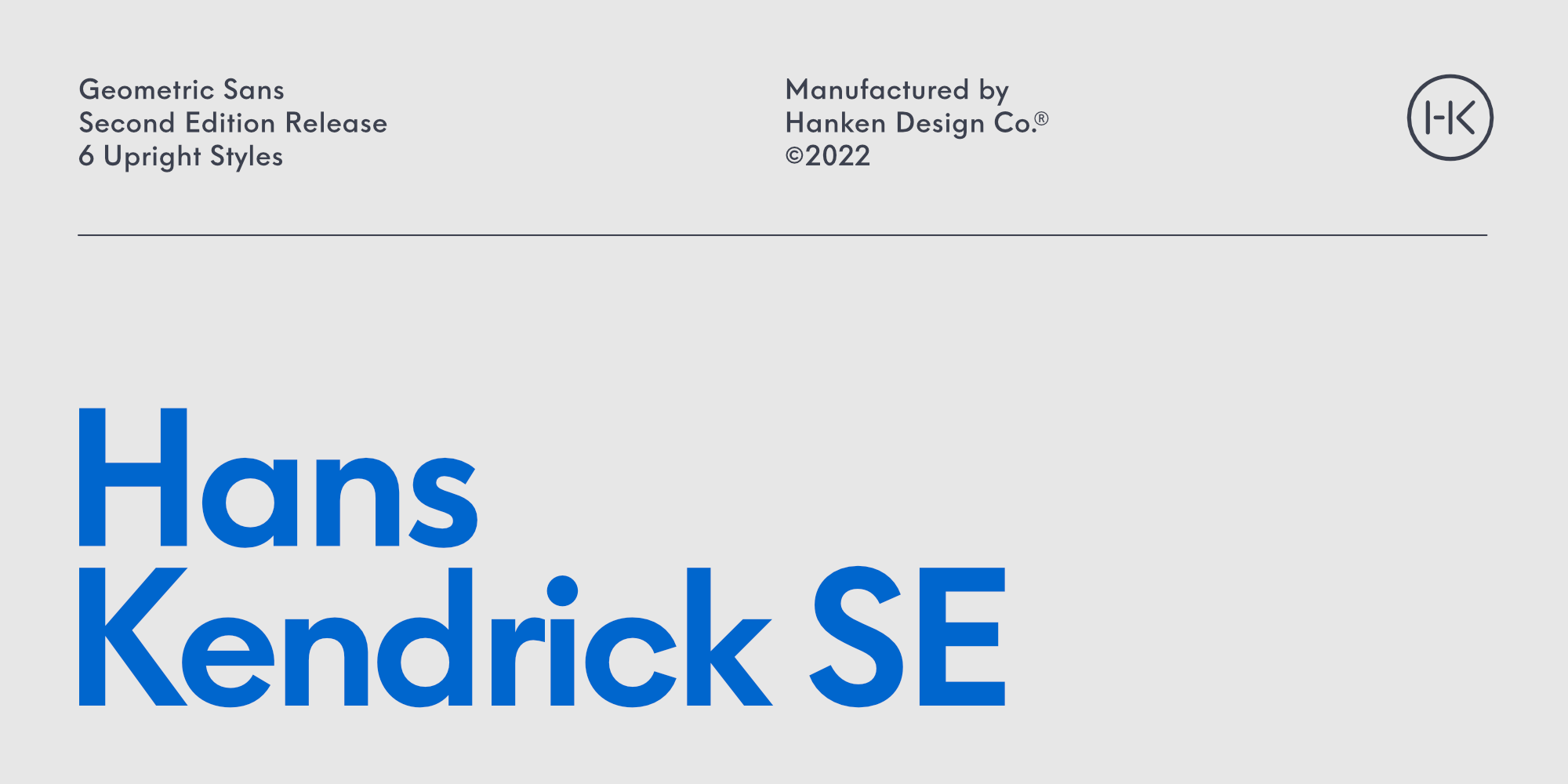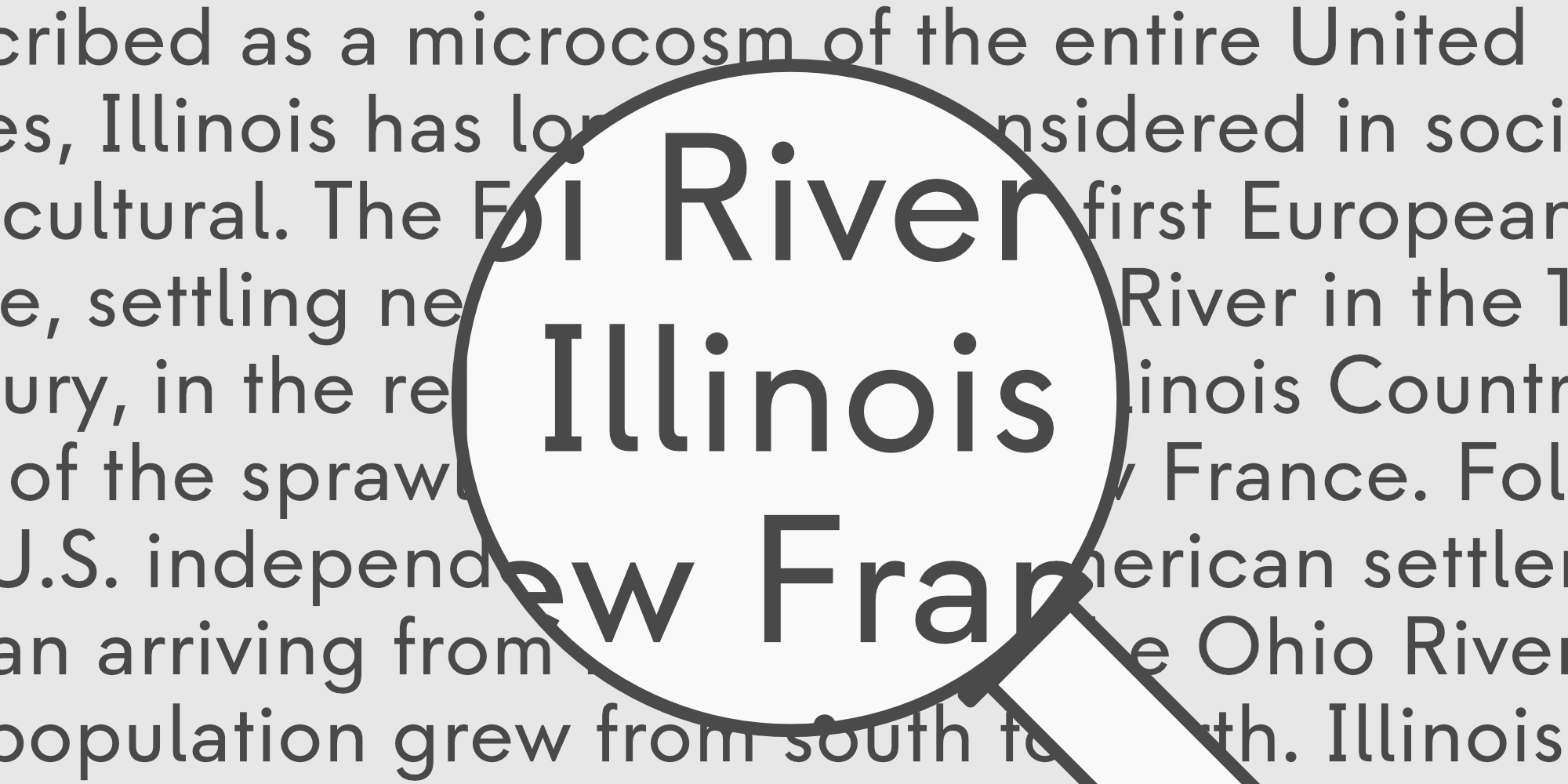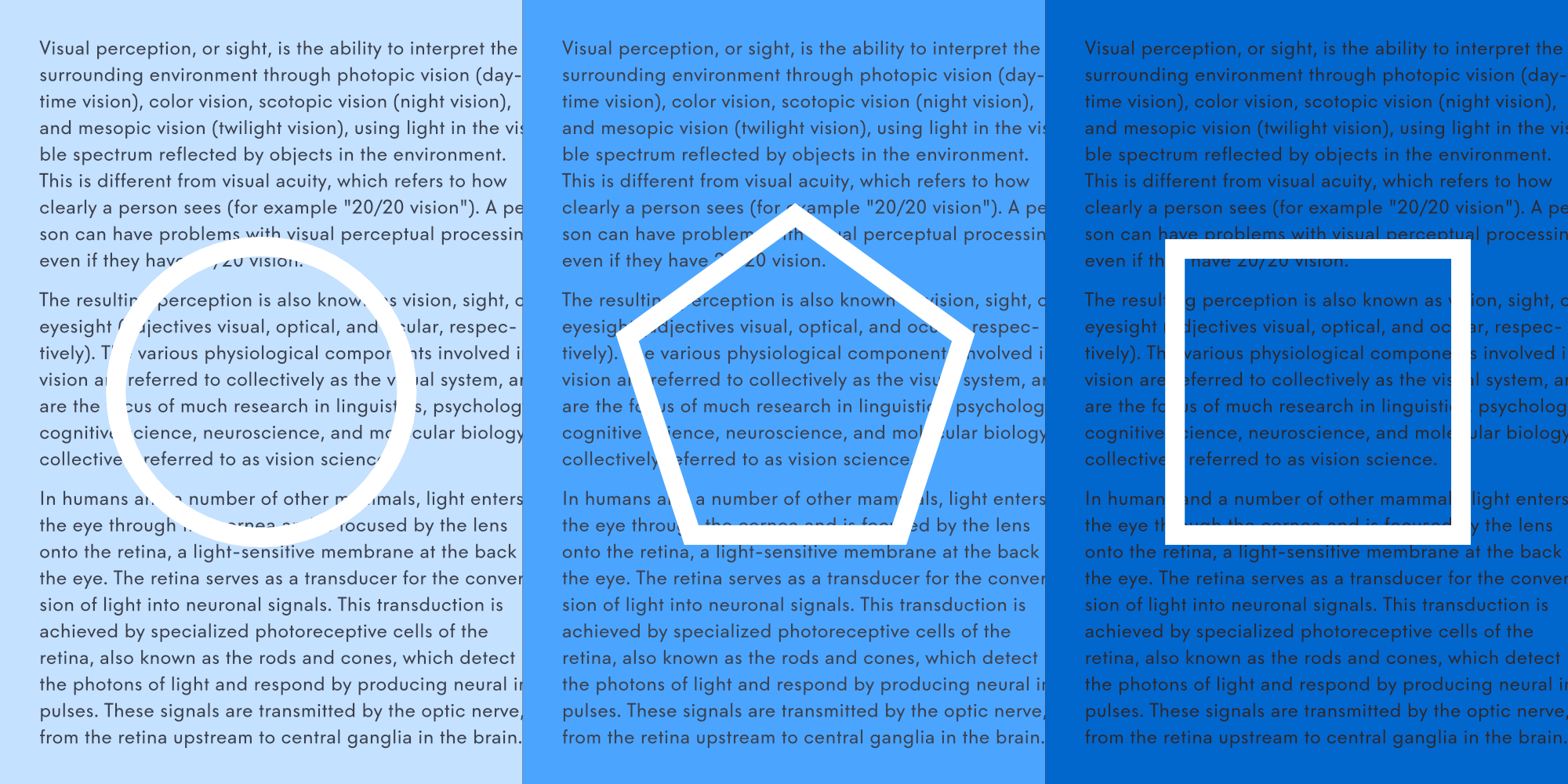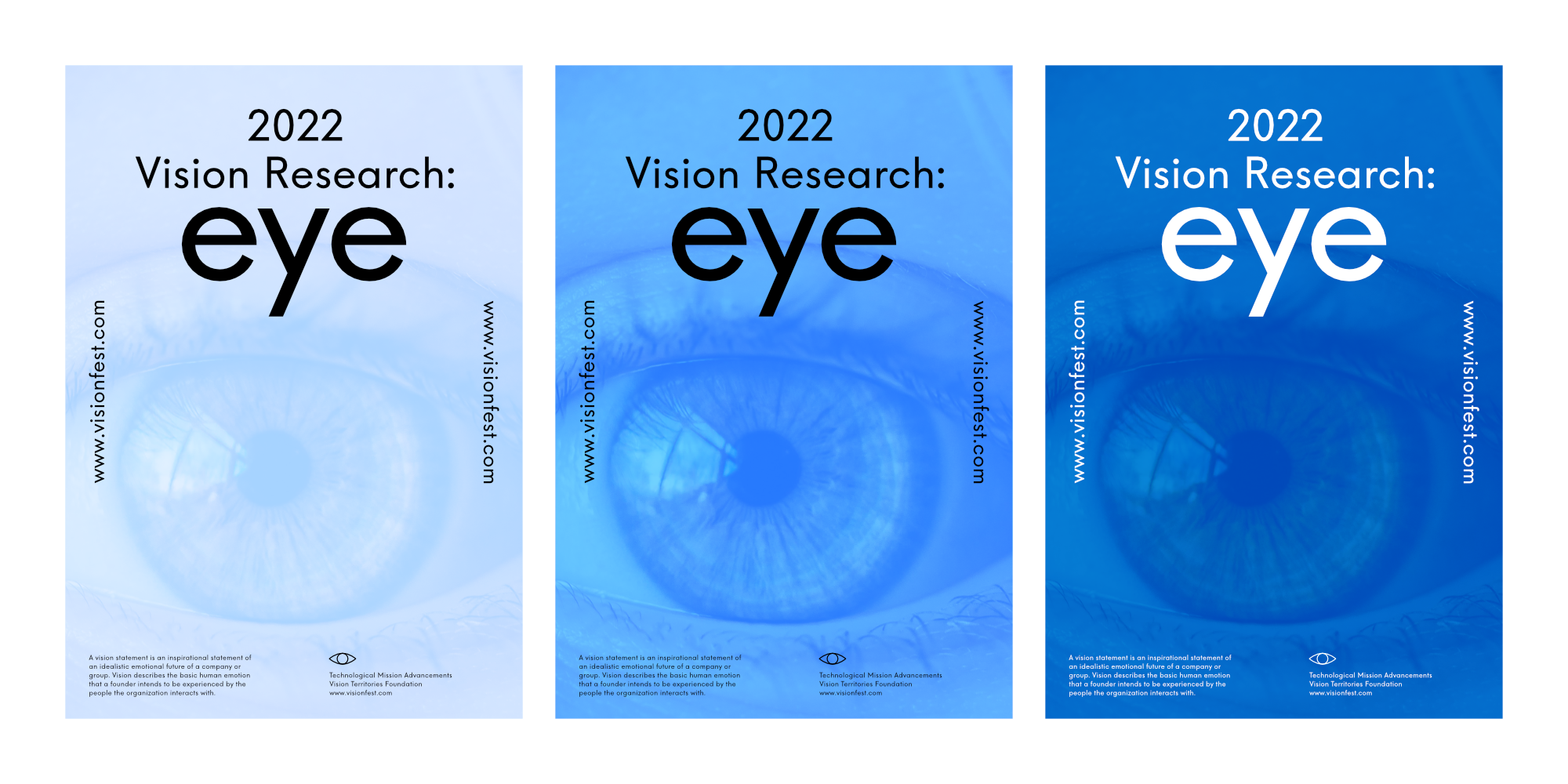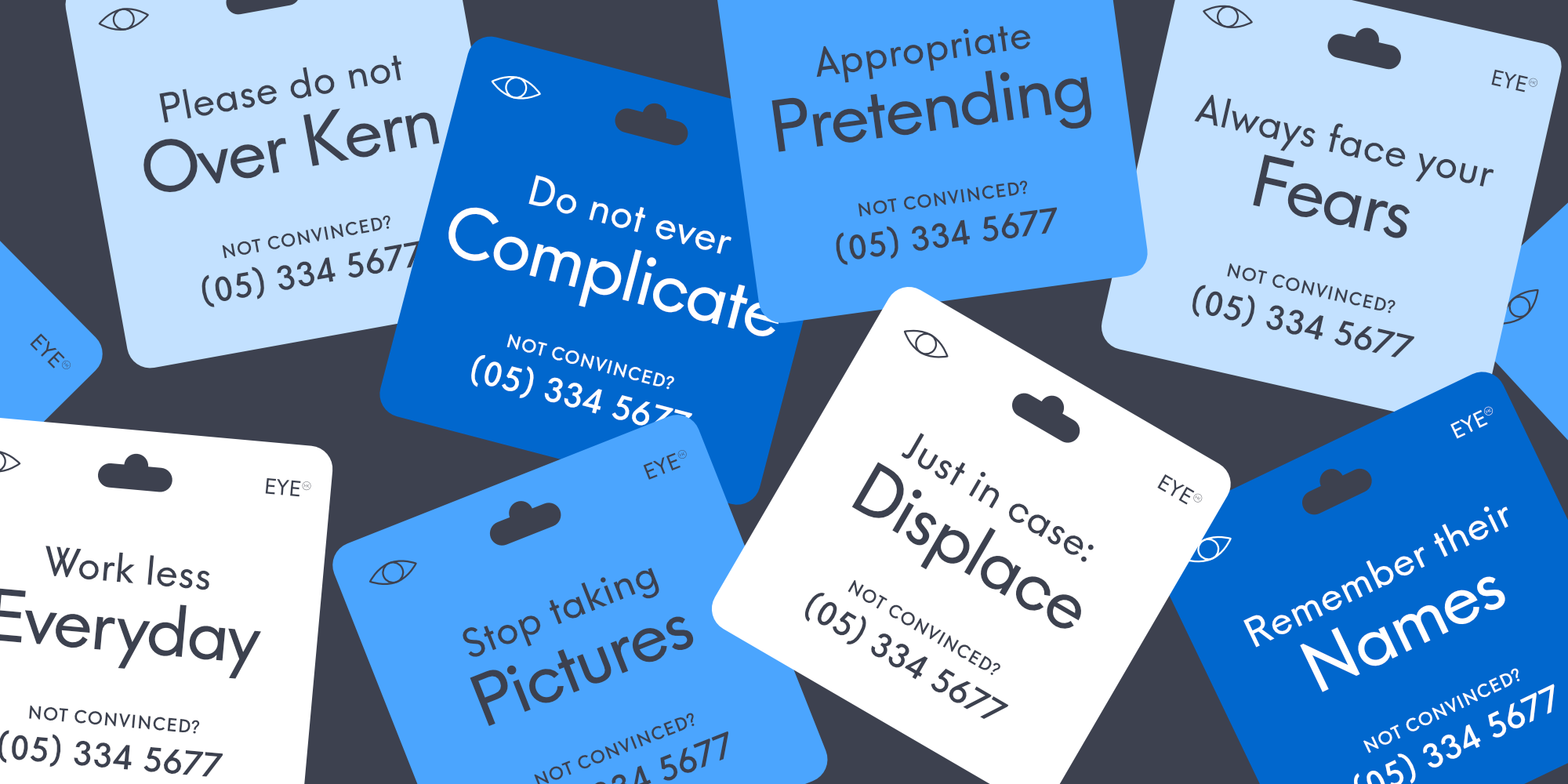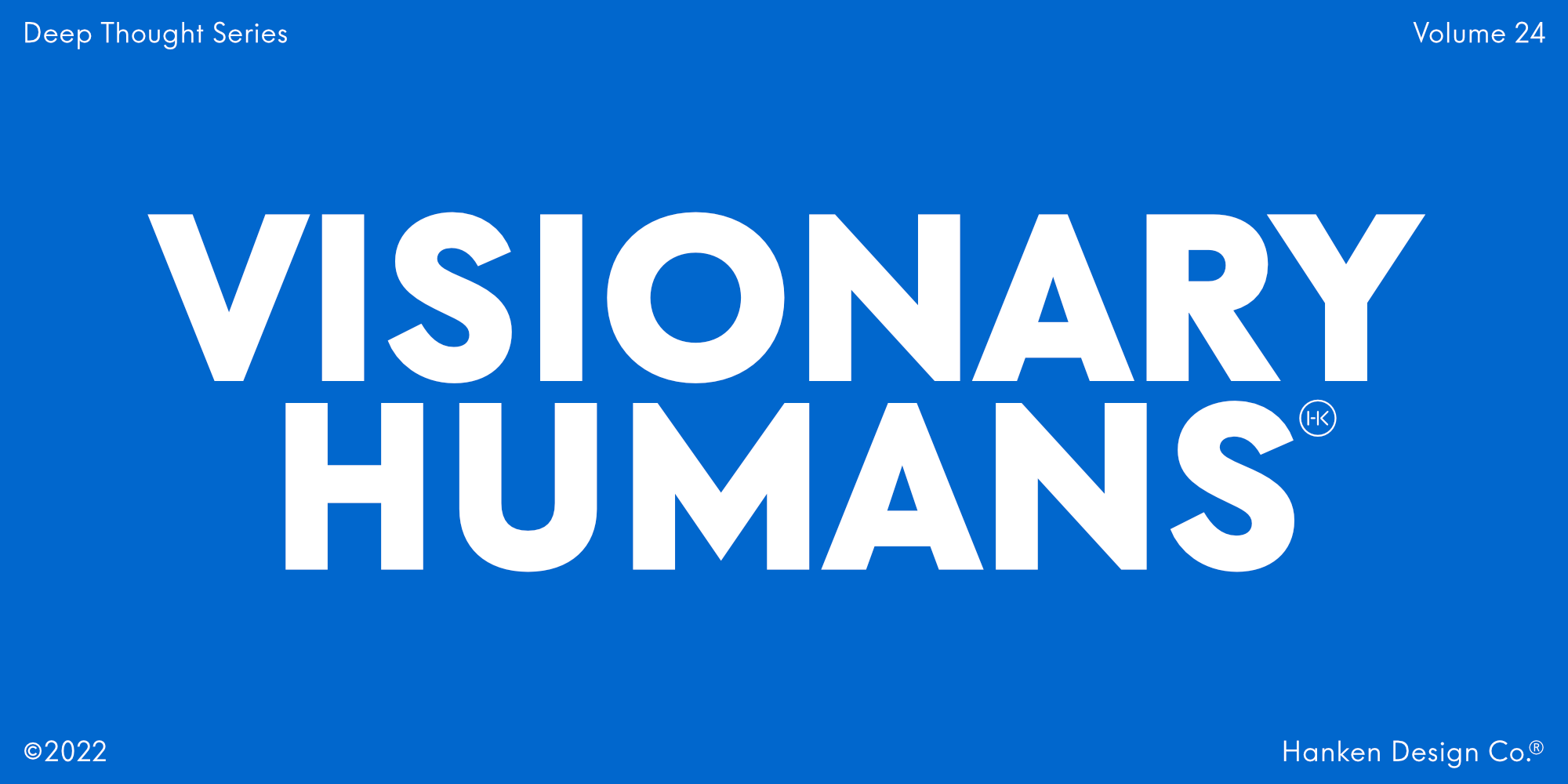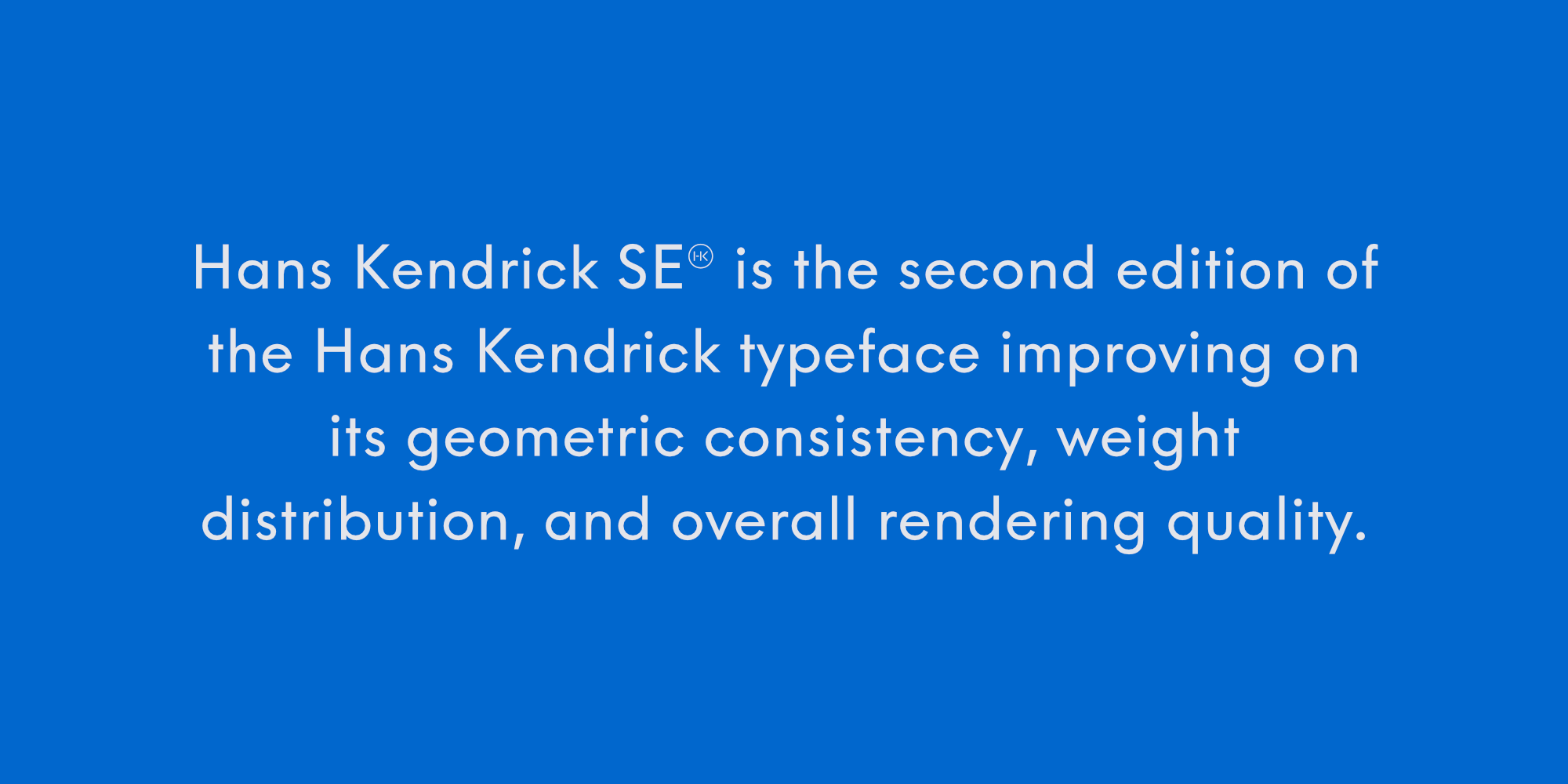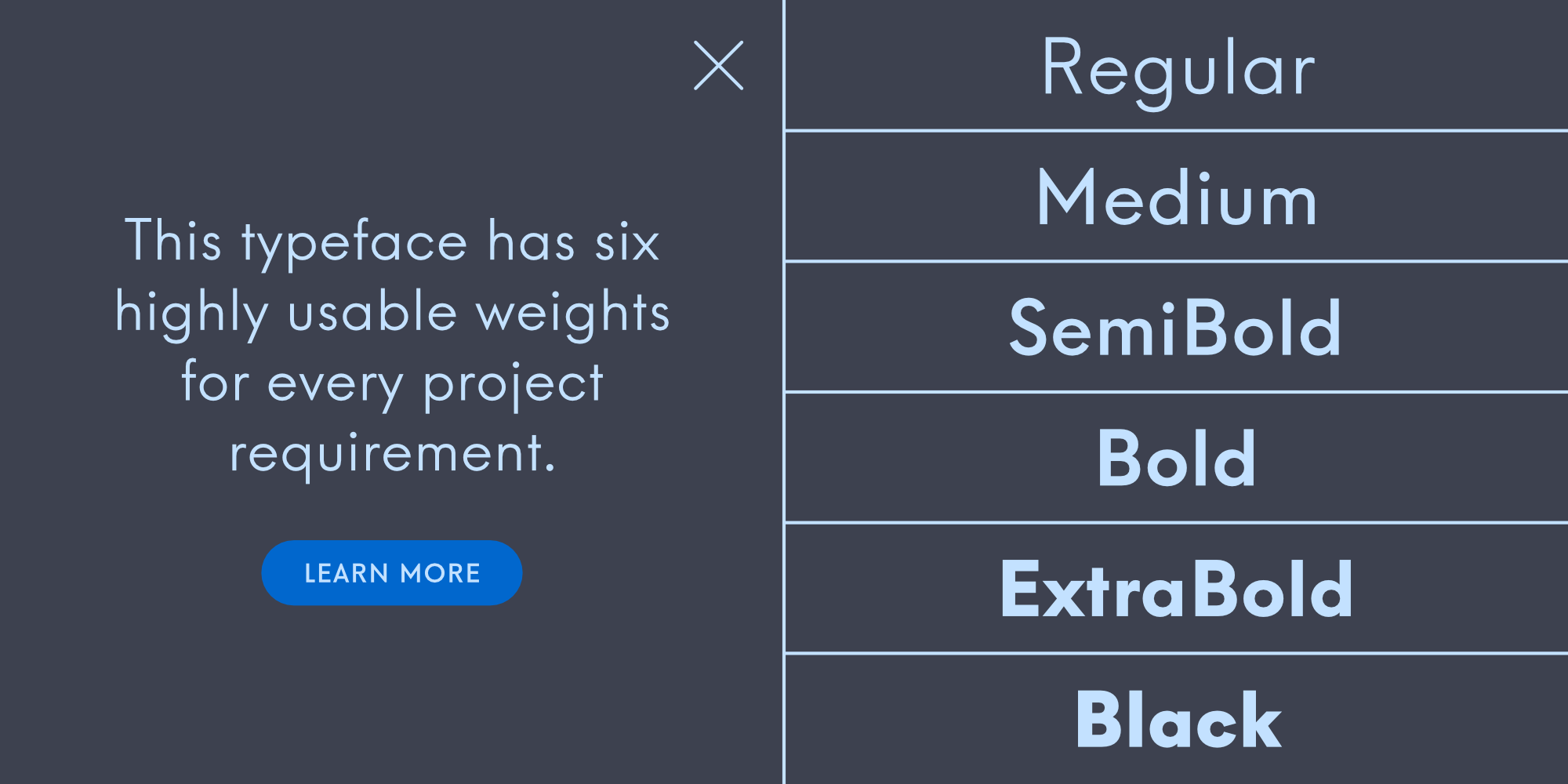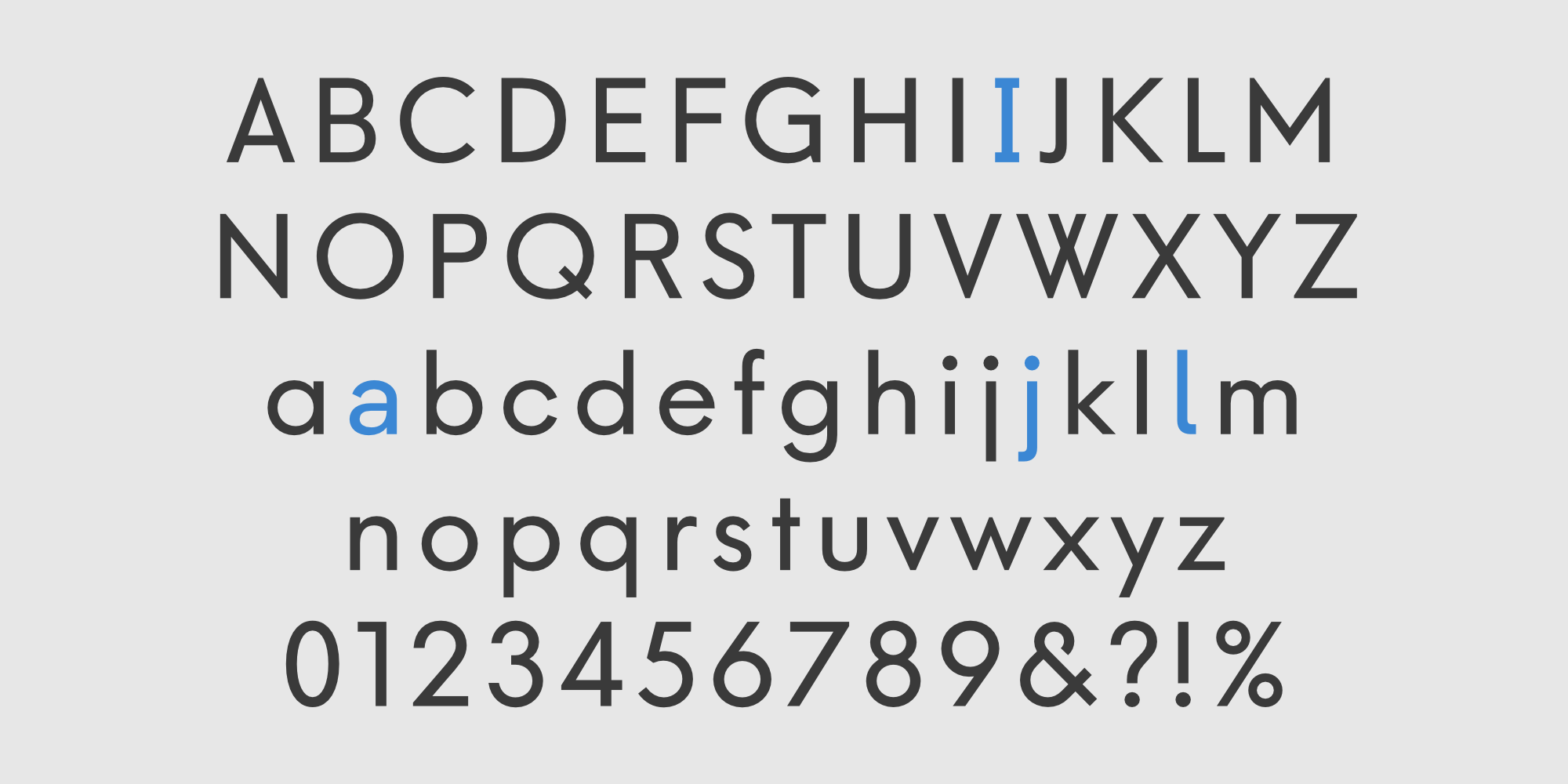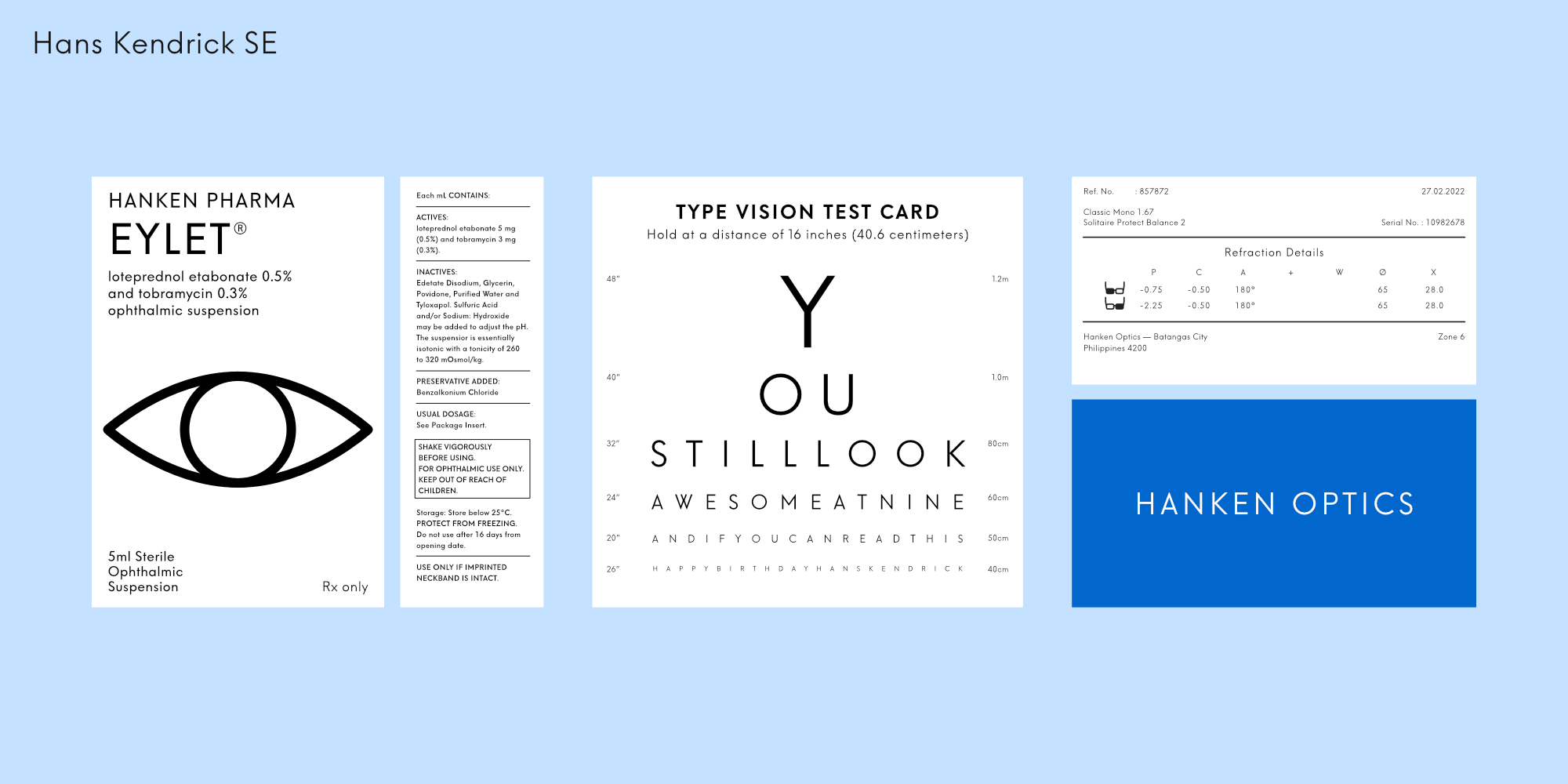
Hans Kendrick SE is an update to our first ever typeface—Hans Kendrick. It has been updated to have a more balanced characters. The sharp tip overshoots have been removed with an extensive font family in mind.